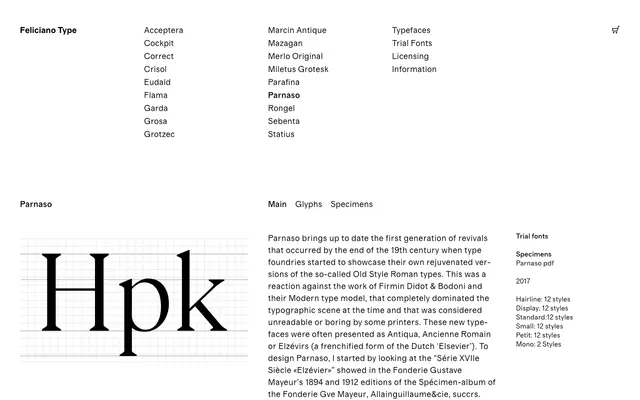
Parnaso
Feliciano Type · 2017
A five-optical-size old-style revival rooted in late 19th-century Elzévir specimens, with vivid baroque italics and swash titling capitals suited to editorial and advertising work.
Drawing directly from the Fonderie Gustave Mayeur's 1894 and 1912 Elzévir specimen albums, the family translates that first wave of Old Style revivals into a contemporary magazine and advertising tool. Capital letters retain the geometric spirit of Didot but replace hairline serifs with sturdy wedge forms, while the condensed lowercase offers a distinctive type colour. Sixty styles span five optical sizes from Petit to Hairline, each in six weights with matching italics, plus a monospaced companion in Regular and Italic.
Parnaso is rooted in late 19th-century revivals of Old Style Roman types, specifically the Elzévir tradition as shown in Fonderie Gustave Mayeur specimens, placing it firmly in the humanist old-style serif category with baroque italic influences.